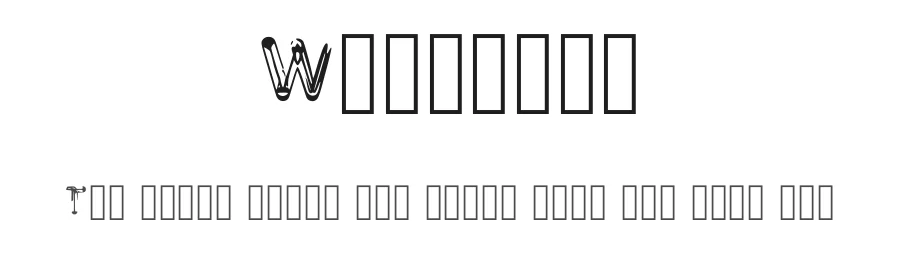
About Moebius Font
Moebius is a decorative font designed by Peter Wiegel. It includes 71 glyphs, a regular weight, TTF (TrueType) format, and 95 languages. Moebius is free to download; check the license details on this page before commercial use. Decorative fonts like Moebius work best for logos, posters, packaging, and standout headlines.
| Designer | Peter Wiegel |
Moebius Font is a decorative font that shines as a display or heading face. Pair it with a clean sans-serif or serif font for body text β the contrast creates a clear hierarchy while the two styles stay balanced and easy to read.
Moebius Font
by Peter Wiegel
Moebius Font is a decorative typeface by Peter Wiegel, ideal for logos, invitations, branding, and creative projects.